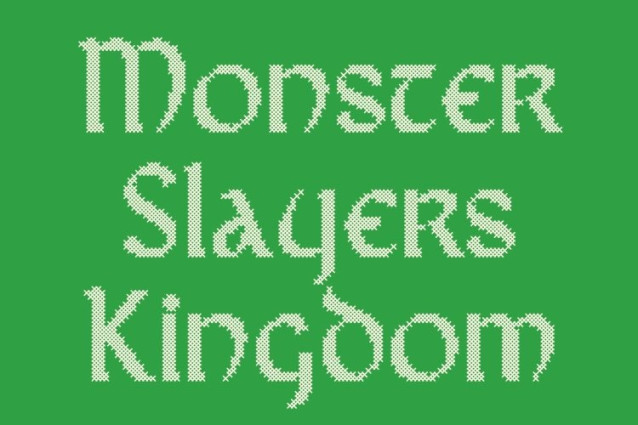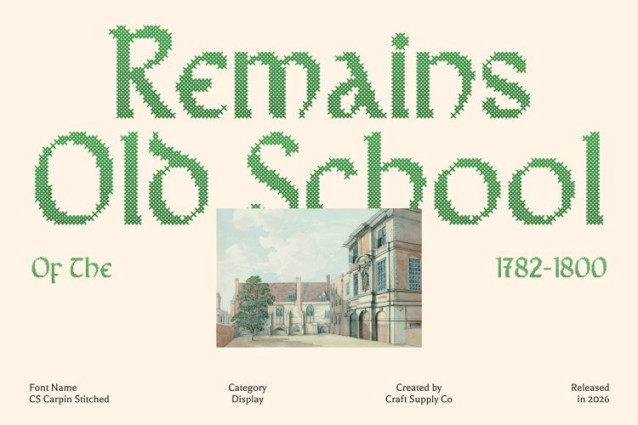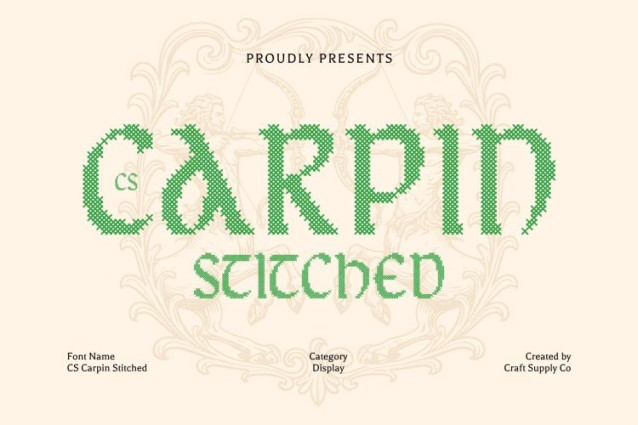
CS Carpin Stitched Font
CS Carpin Stitched Font is a captivating uncial display font inspired by the graceful forms of medieval handwriting. Its rounded, flowing letterforms reflect the artistry of ancient script traditions while introducing a stitched texture that adds a handcrafted dimension. Inspired by thread sewn or embroidered on fabric, the stitched detailing brings subtle depth and warmth, enriching the historical character of the font.
Uncial Forms Rooted in Historical Typography
Drawing from the traditions of early manuscript lettering, this font features soft curves, balanced proportions, and distinctive uncial shapes that evoke the atmosphere of medieval scriptoria. The stitched overlay enhances these classic forms with a delicate cross-thread pattern, creating an embossed fabric-like appearance that feels both historic and artisanal.
Artistic Curves with Decorative Depth
The elegant curves and harmonious letter structures give the font a refined and artistic presence. The stitched texture adds visual richness without overpowering the original design, allowing the uncial style to remain clear while introducing a tactile quality that makes each letter feel thoughtfully crafted.
Ideal for Historical and Elegant Design Projects
This is perfect for projects that celebrate tradition, culture, and artistic typography. It works beautifully for book covers, historical posters, invitations, heritage branding, decorative prints, and themed event materials. With its blend of medieval elegance and stitched craftsmanship, this font brings a timeless, graceful, and distinctive character to any design.
Uncial Forms Rooted in Historical Typography
Drawing from the traditions of early manuscript lettering, this font features soft curves, balanced proportions, and distinctive uncial shapes that evoke the atmosphere of medieval scriptoria. The stitched overlay enhances these classic forms with a delicate cross-thread pattern, creating an embossed fabric-like appearance that feels both historic and artisanal.
Artistic Curves with Decorative Depth
The elegant curves and harmonious letter structures give the font a refined and artistic presence. The stitched texture adds visual richness without overpowering the original design, allowing the uncial style to remain clear while introducing a tactile quality that makes each letter feel thoughtfully crafted.
Ideal for Historical and Elegant Design Projects
This is perfect for projects that celebrate tradition, culture, and artistic typography. It works beautifully for book covers, historical posters, invitations, heritage branding, decorative prints, and themed event materials. With its blend of medieval elegance and stitched craftsmanship, this font brings a timeless, graceful, and distinctive character to any design.